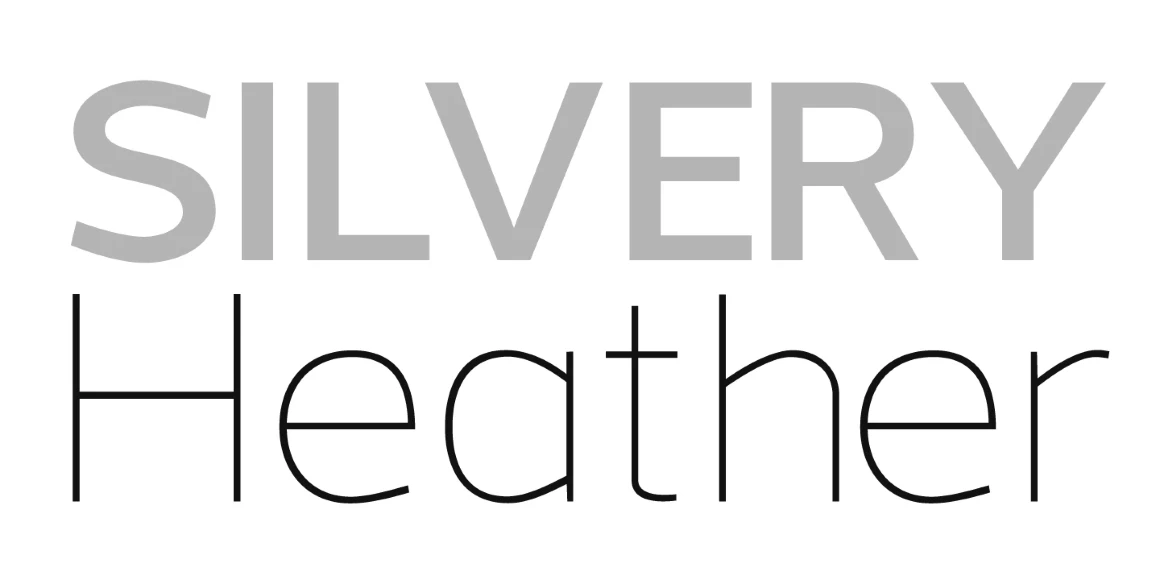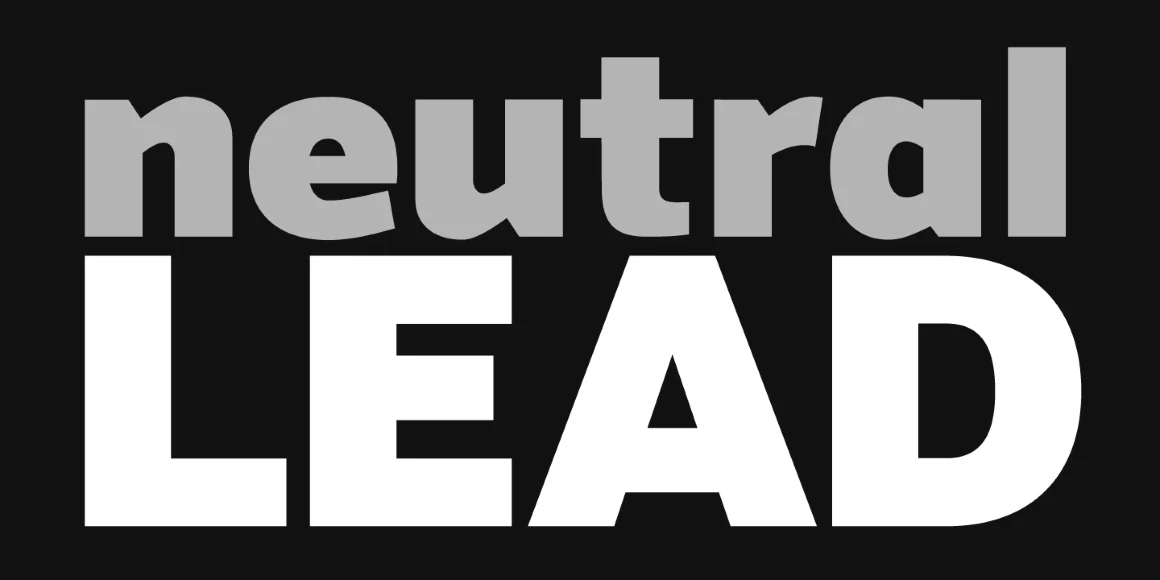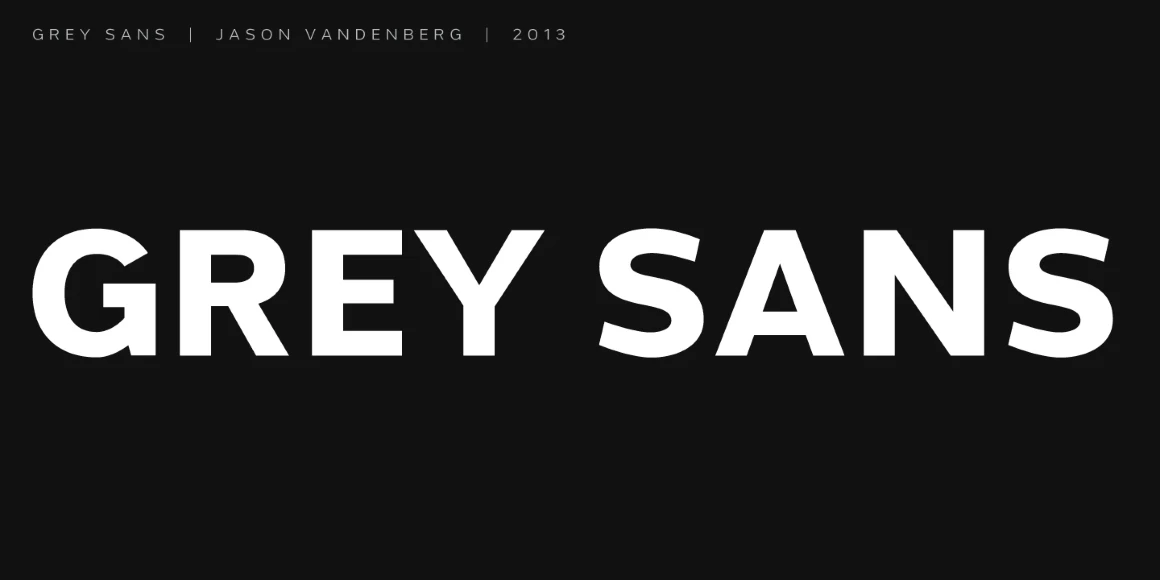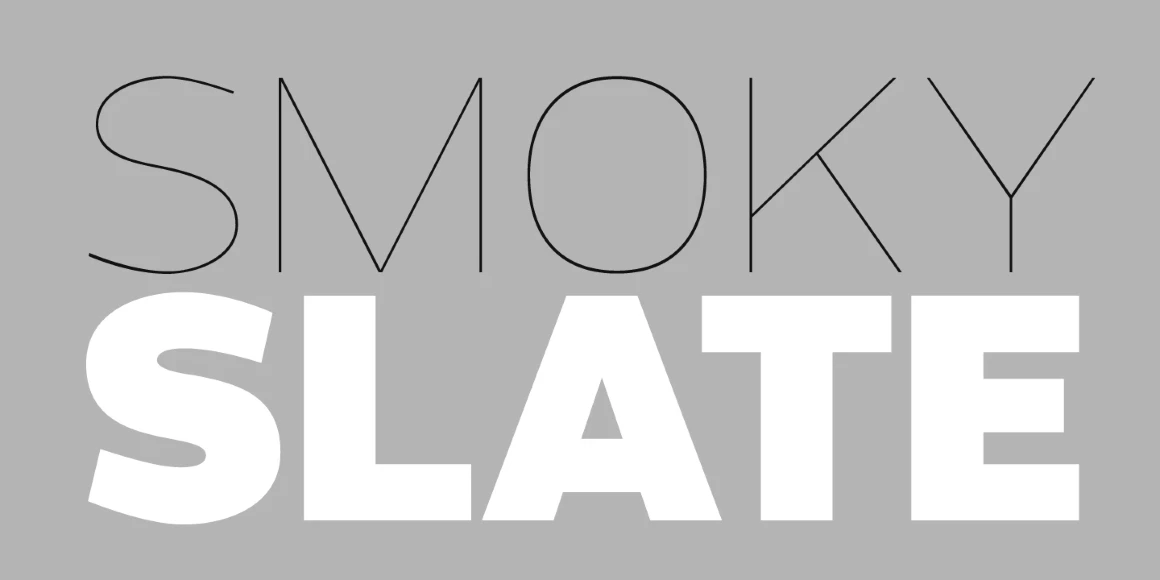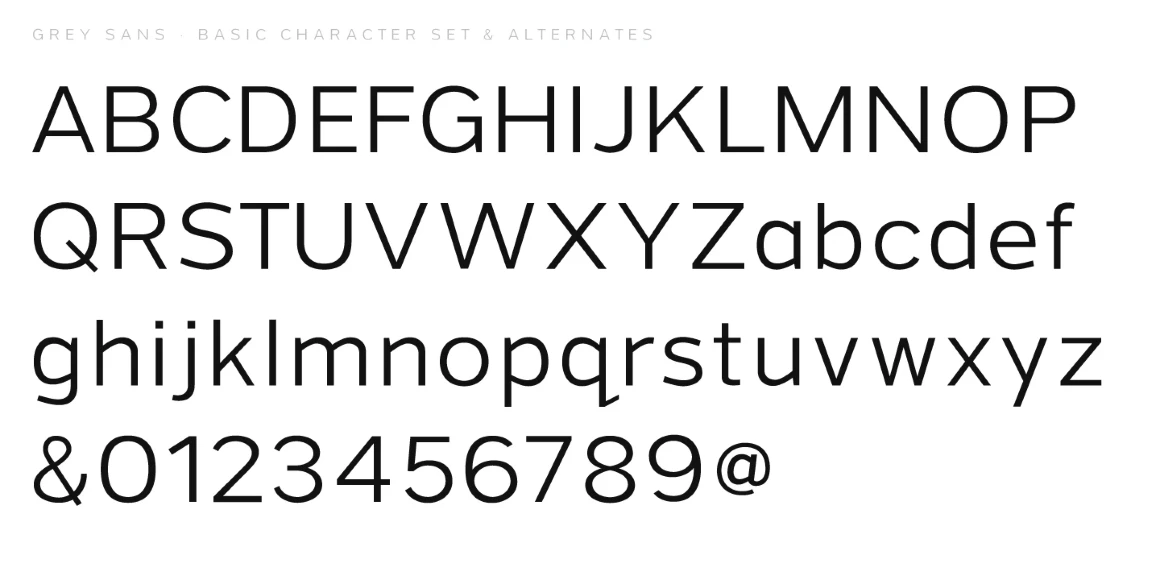
Grey Sans
By Jason Vandenberg
Grey Sans Hairline
Grey Sans Thin
Grey Sans Light
Grey Sans Regular
Grey Sans Semi Bold
Grey Sans Bold
Grey Sans Extra Bold
Grey Sans Black
A grotesque with an angular design.